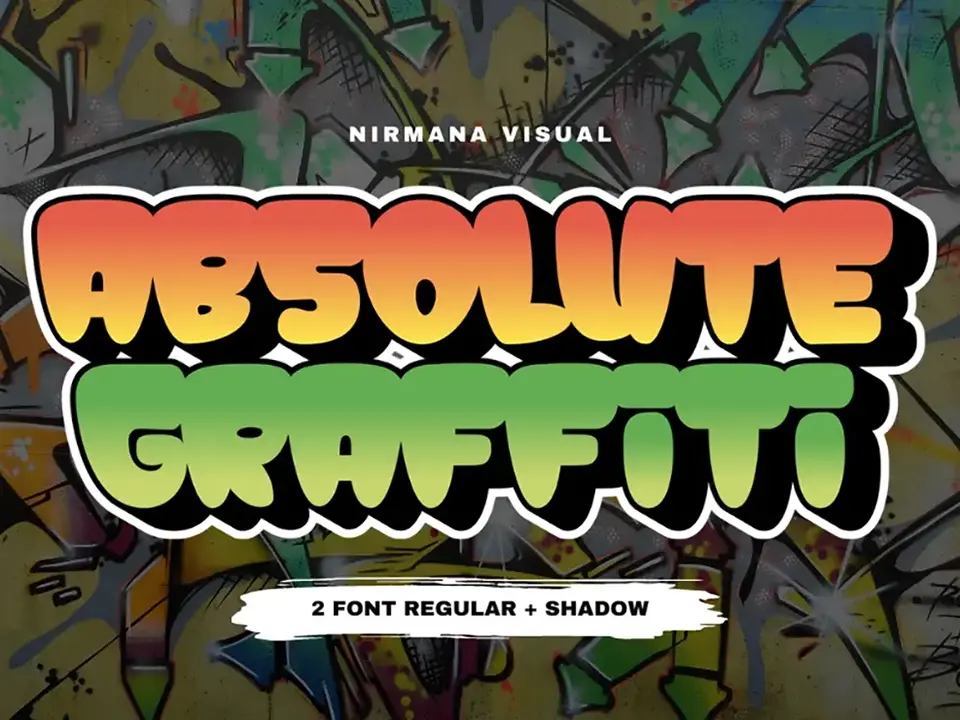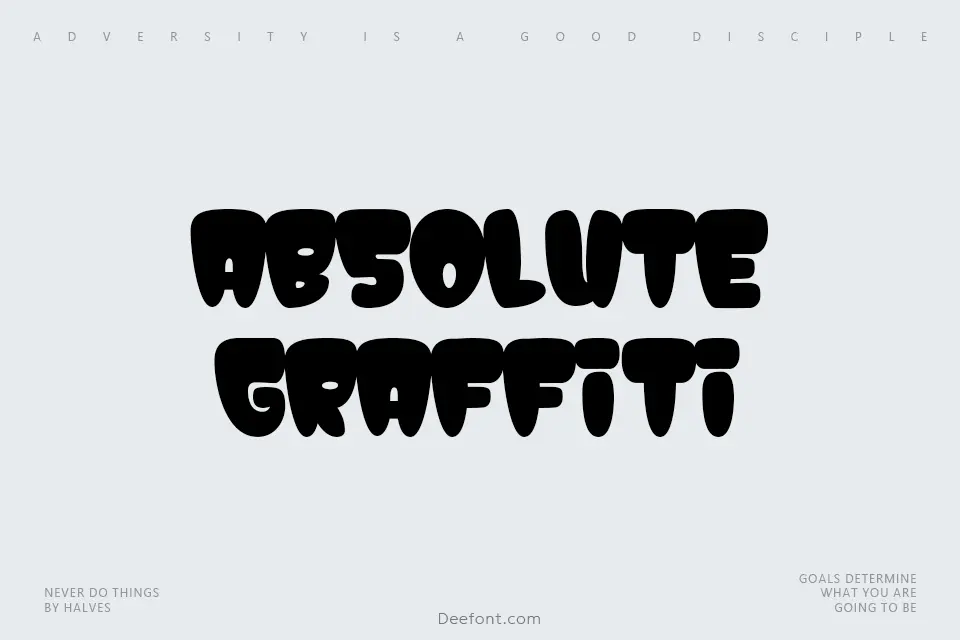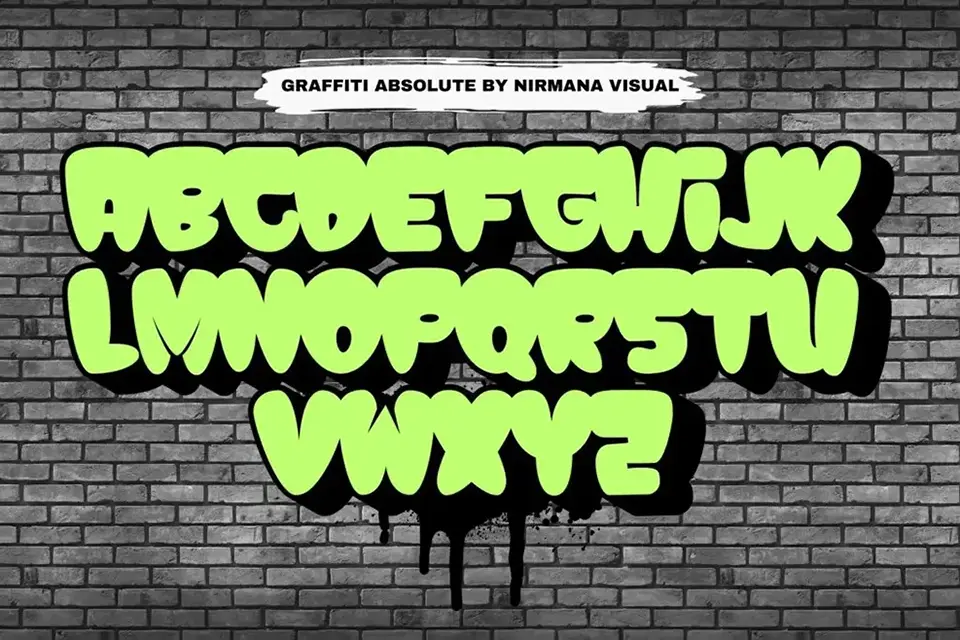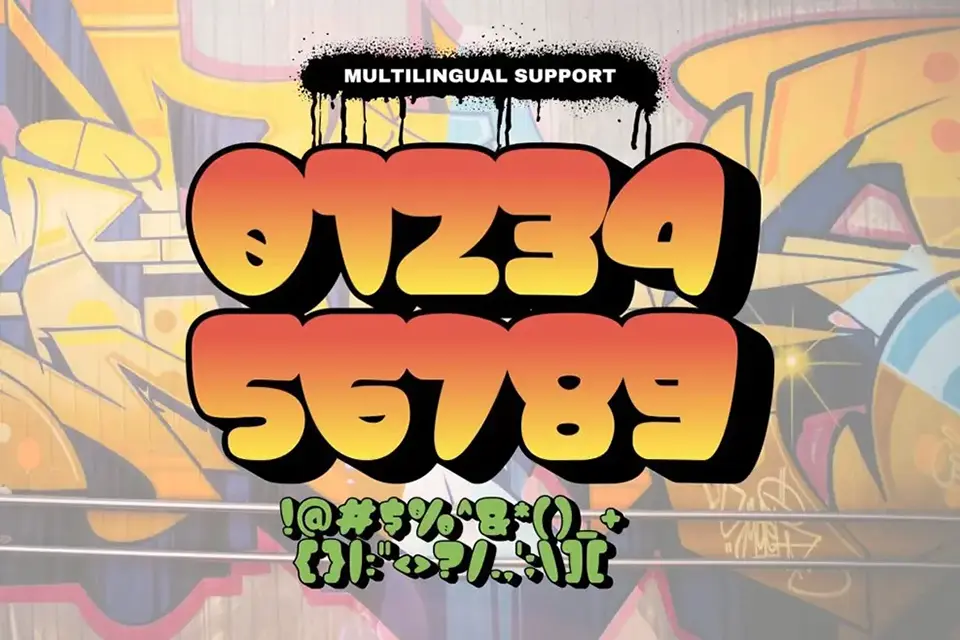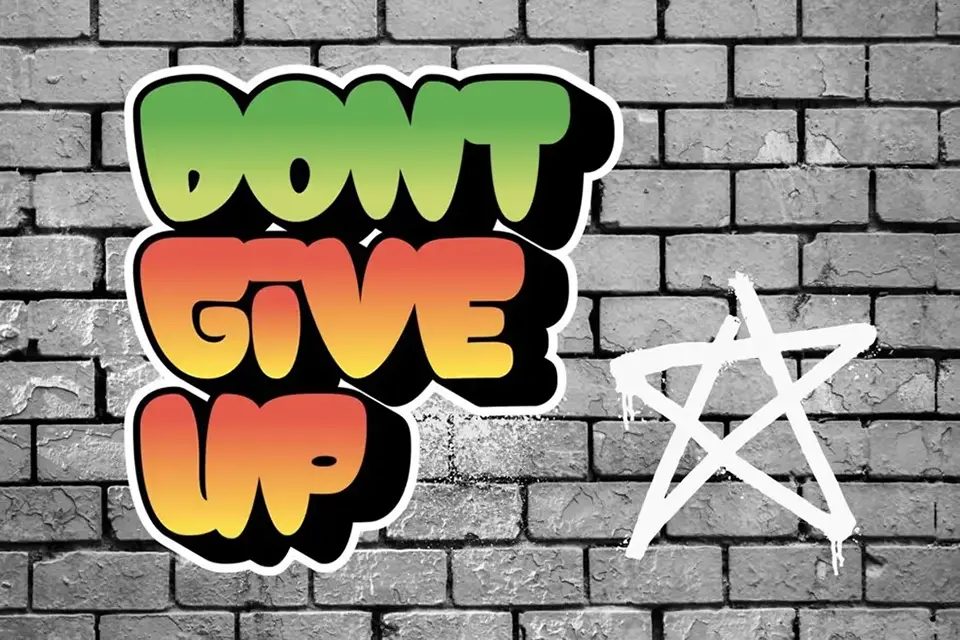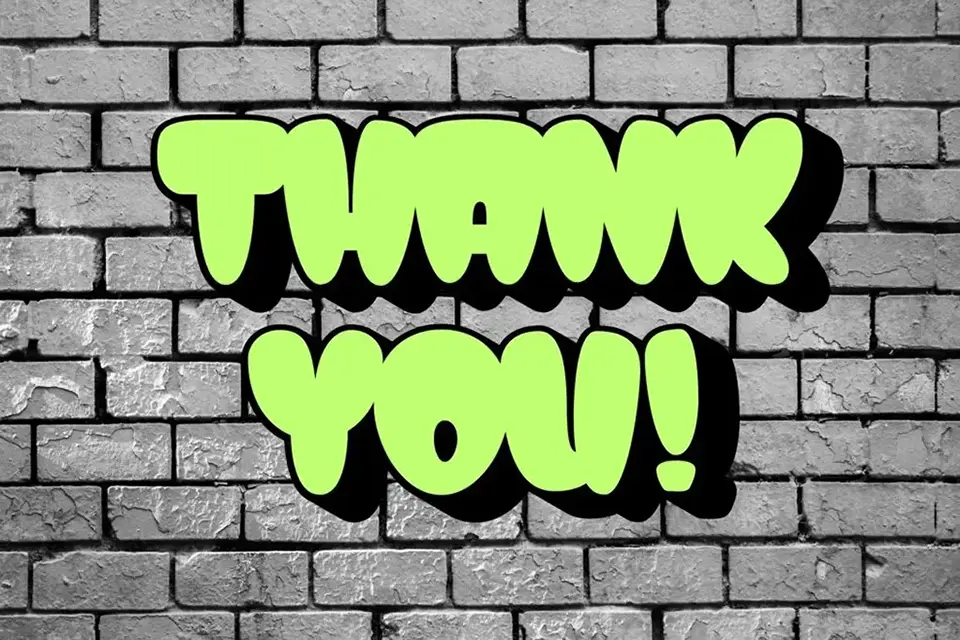
Absolute Graffiti Font
Absolute Graffiti is a bold and expressive graffiti font that brings the vibrant energy of street art to your design projects. Perfect for rebellious, youthful designs seeking to make a statement, this font captures the essence of urban creativity with striking presence. Ideal for eye-catching posters, edgy apparel designs, and bold social media graphics, it adds authenticity and character to creative projects where individuality shines. The font supports Latin languages and contains extensive character support with 317 glyphs.